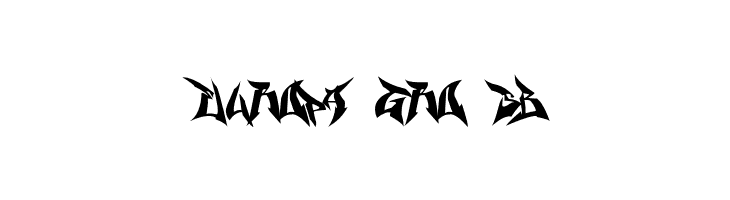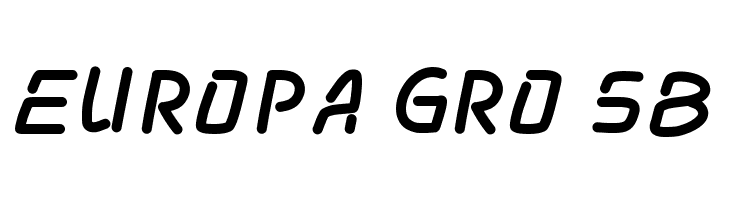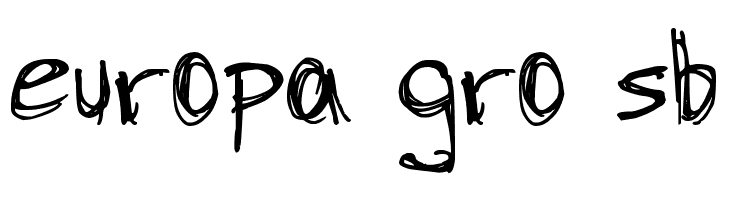
A playful, hand-drawn font with an energetic and sketch-like appearance.
An aggressive, edgy font with sharp, angular lines and a bold presence.
A bold, graffiti-inspired font with sharp, angular lines and a rebellious aesthetic.
A modern, rounded font with a futuristic and bold design.